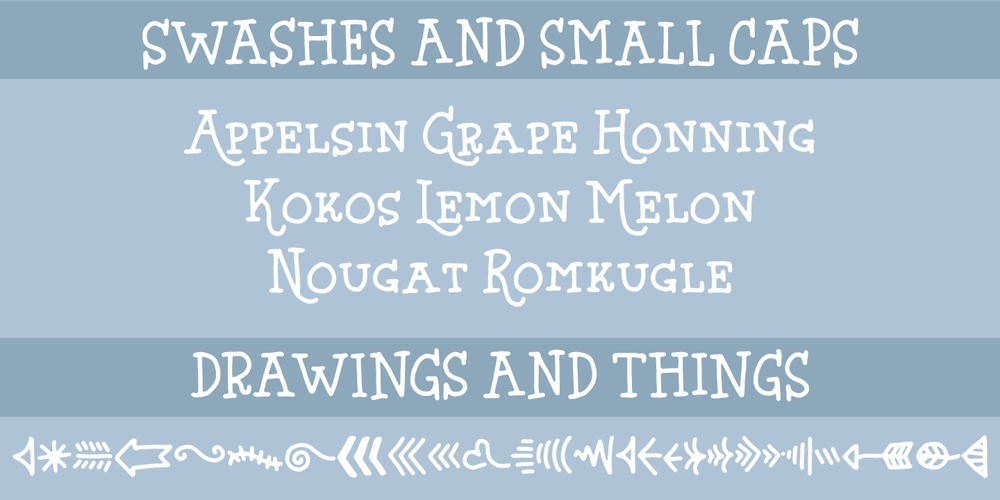
Hyggebukser
Hyggebukser font
Hyggebukser Font Family was designed by published by Bogstav. Hyggebukser contains 4 styles and family package options. Hyggebukser are very comfortable trousers in danish. Trousers you’d wear after a long days work, when you just need to relax. The same goes for this font – it has something very comfortable to it! Also, don’t forget to enjoy the 5 (!) different versions of each letter, along with the drawings, swashes and small caps!